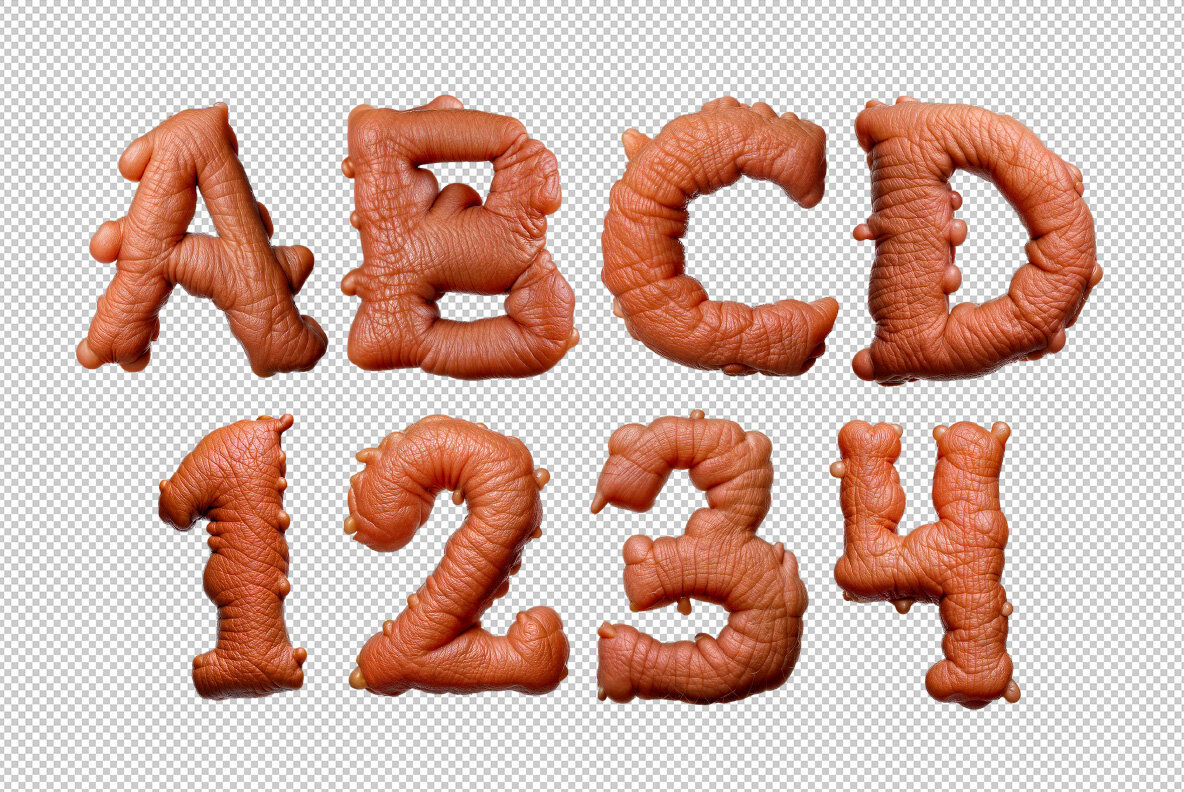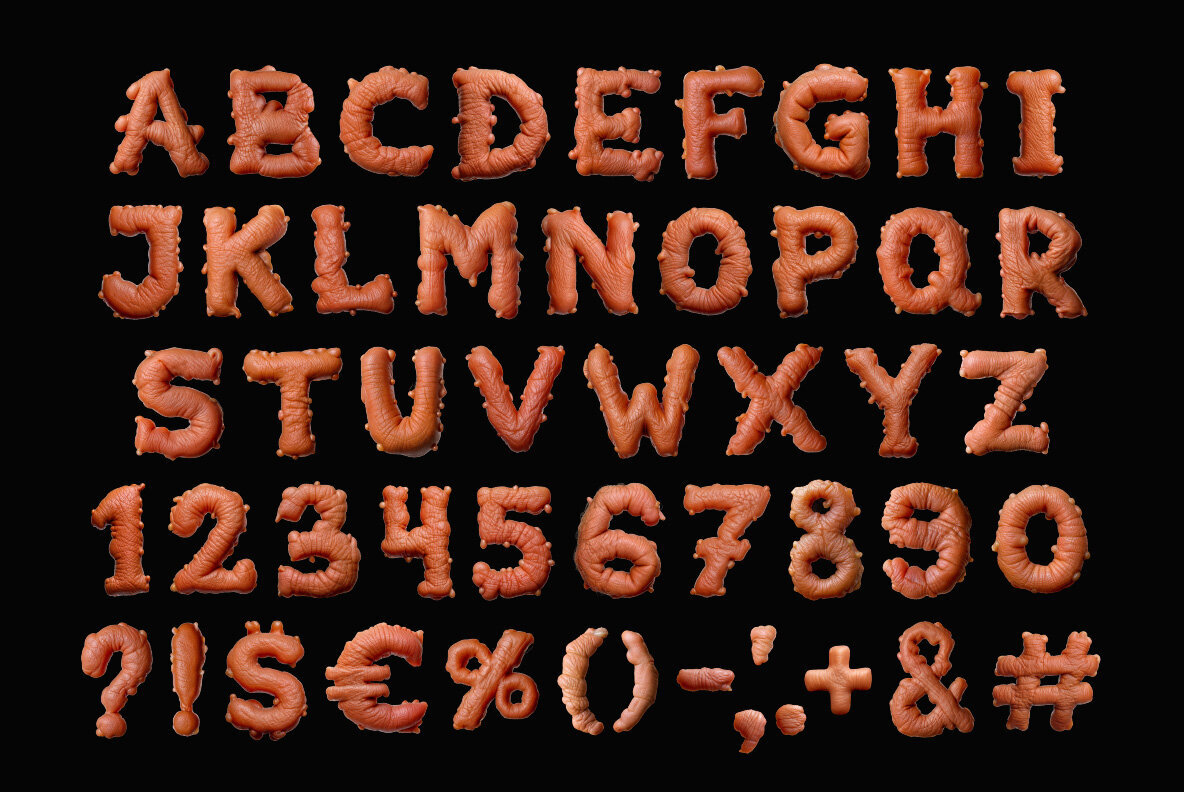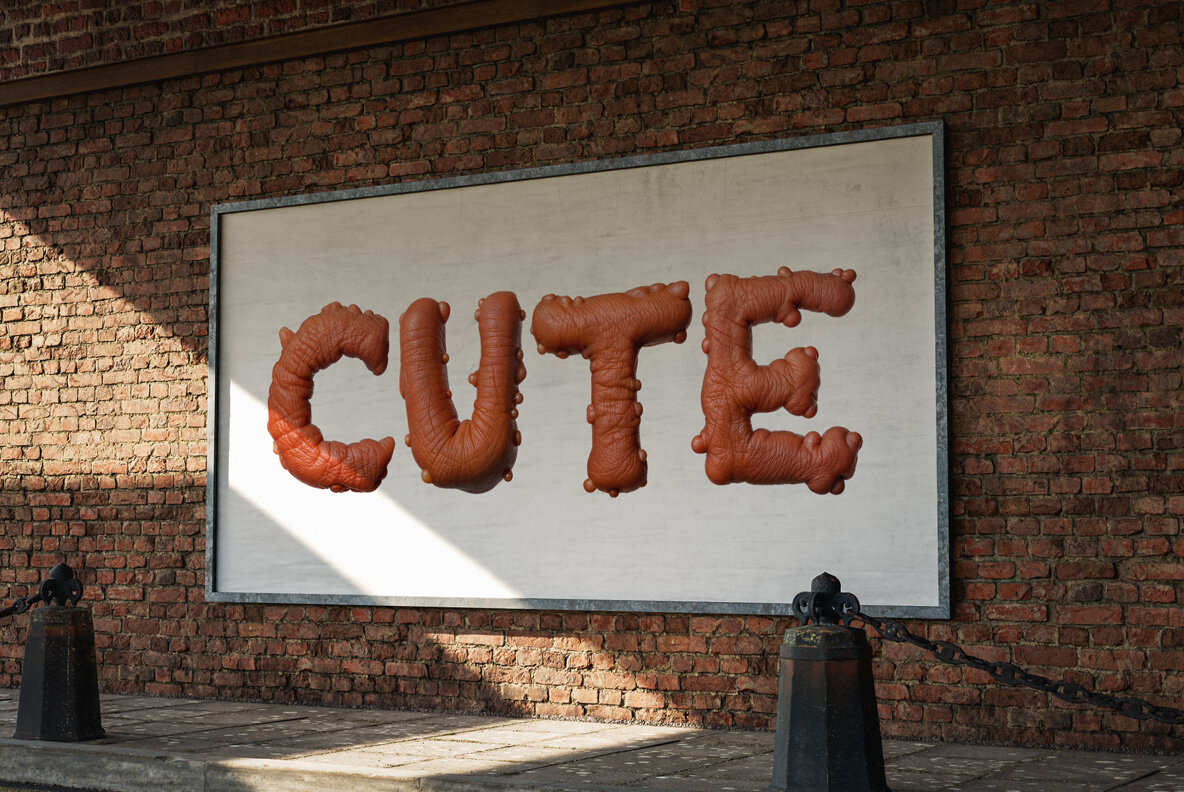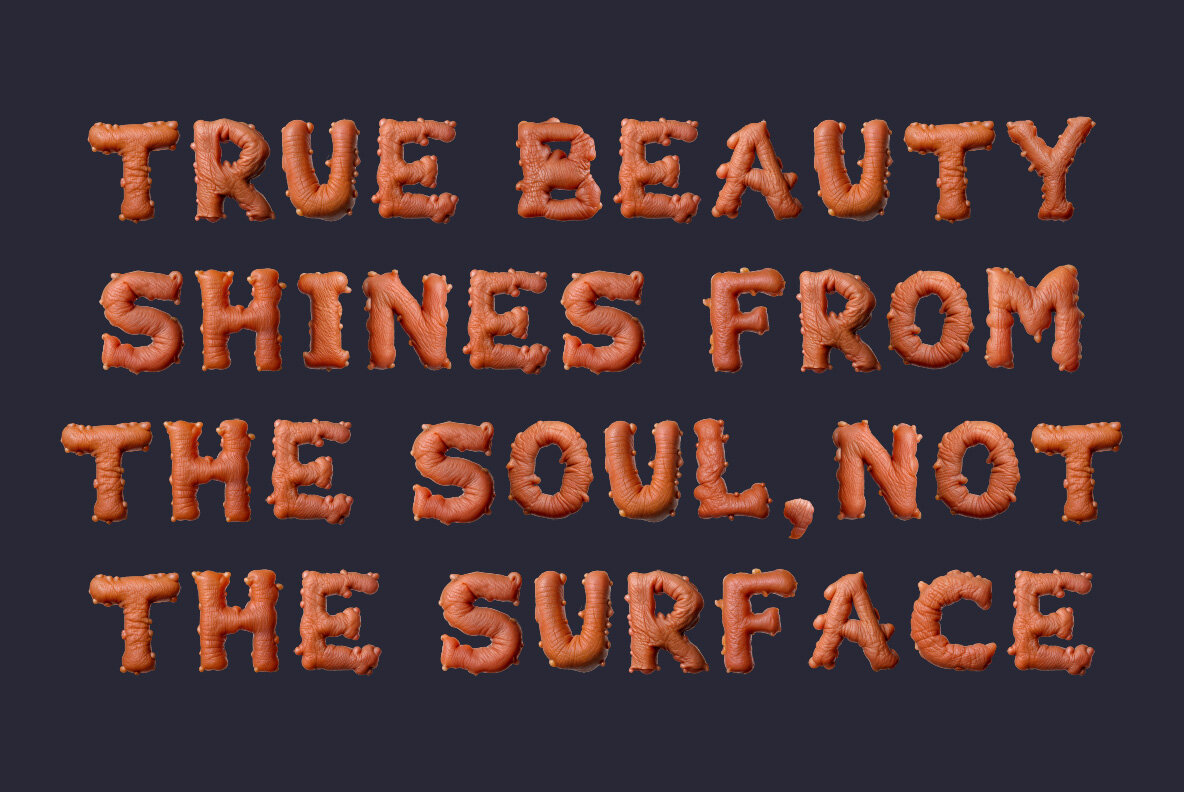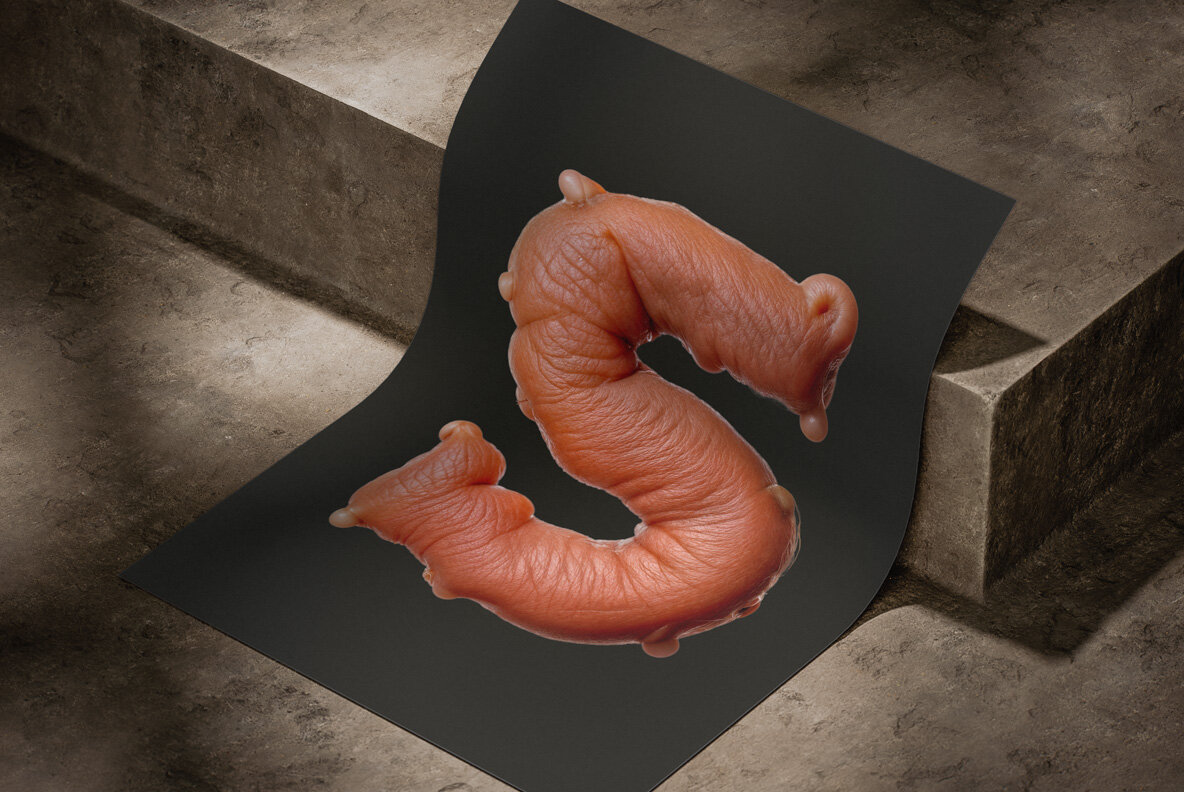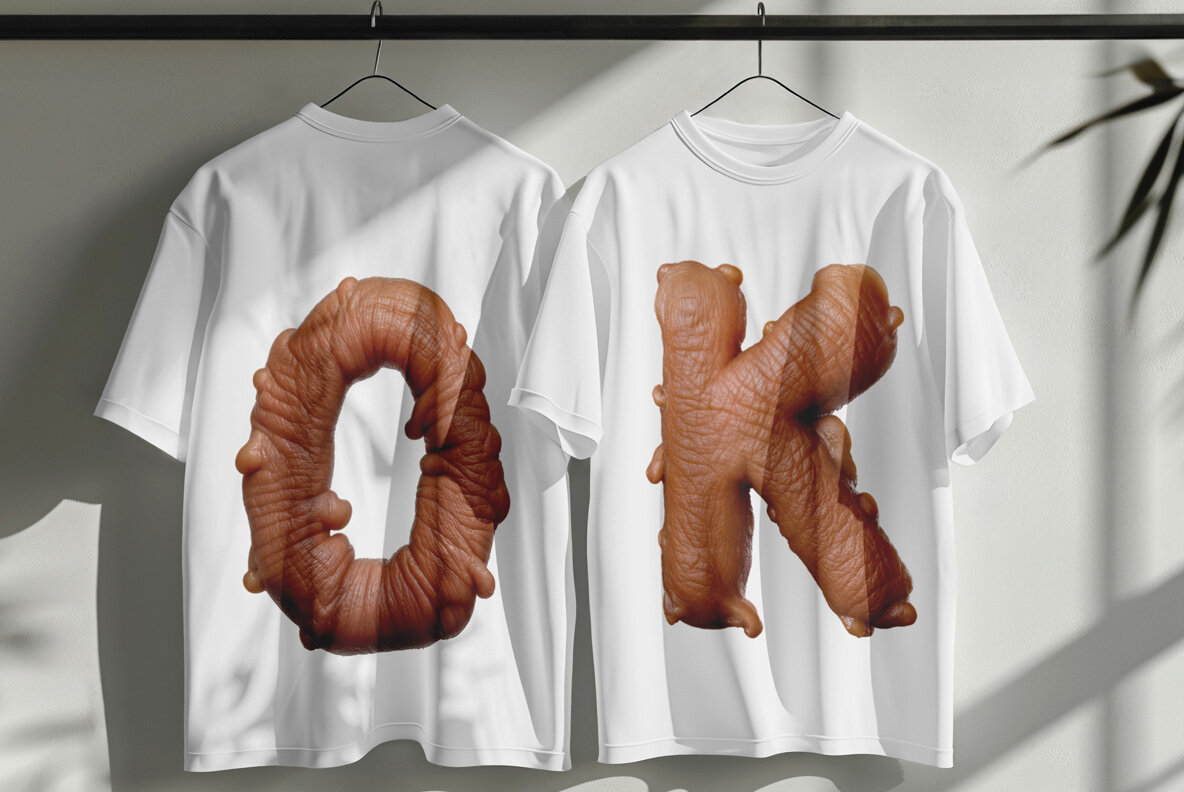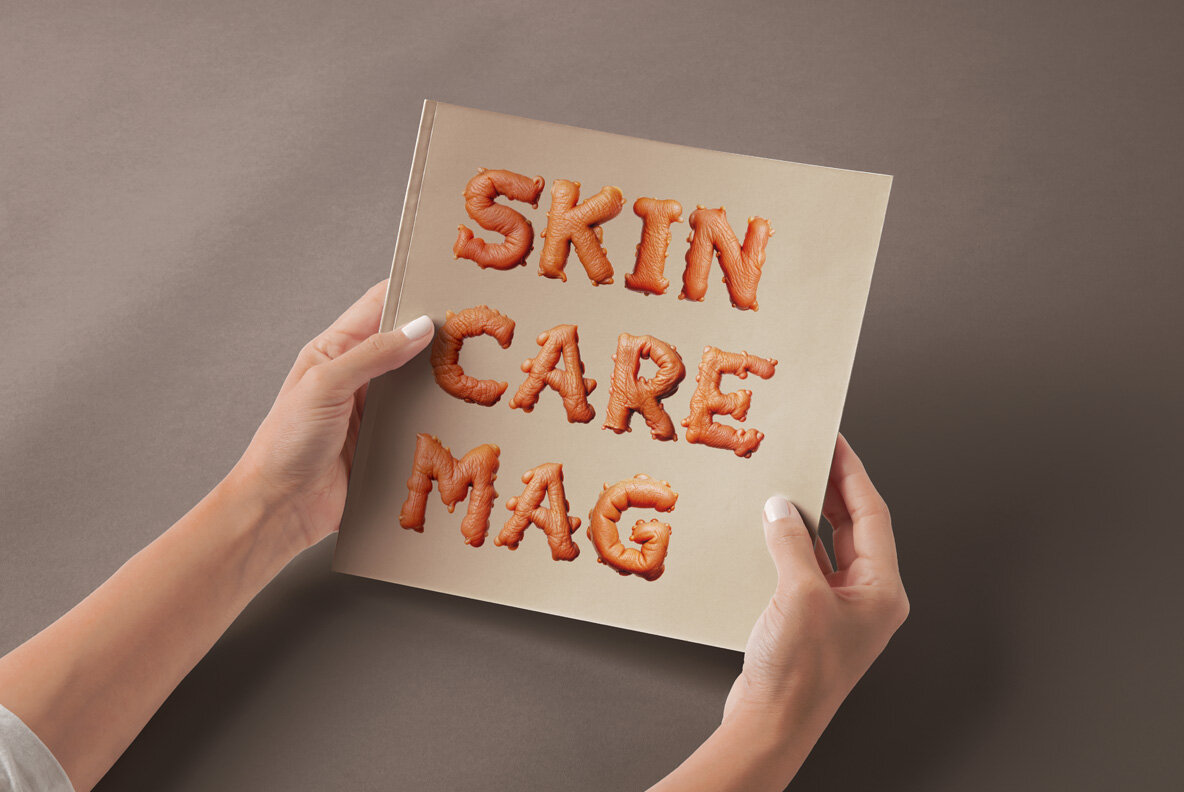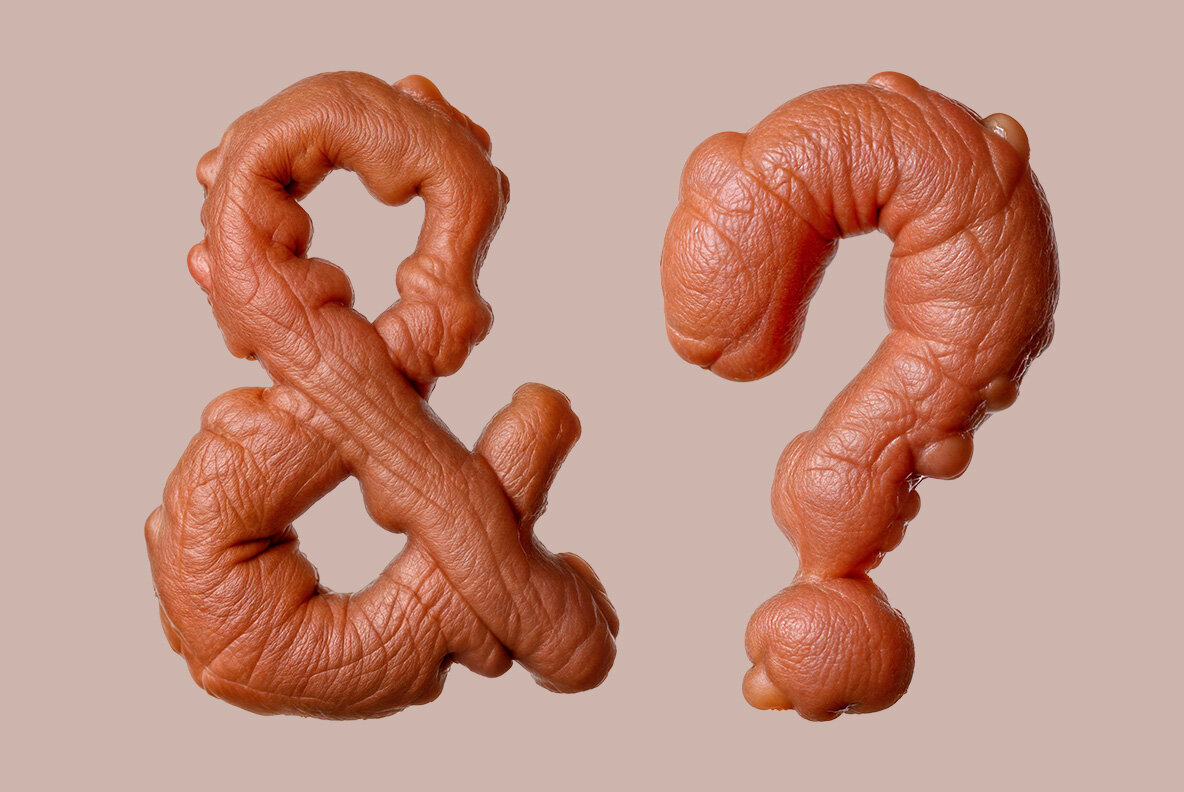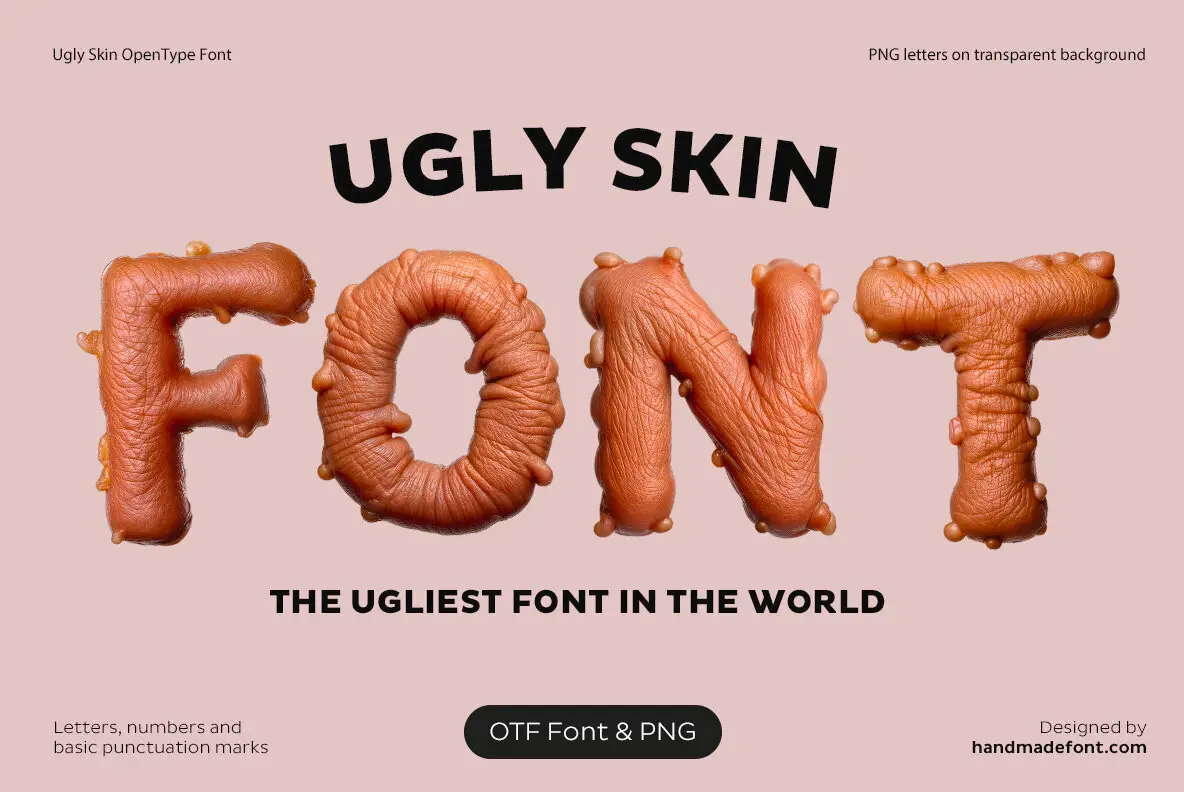
Ugly Skin SVG offers a provocative twist on typography with its skin-inspired design, turning imperfections into an artful medium. Each character—letters, numbers, and punctuation—is meticulously designed to embody the textures of human skin, featuring wrinkles, scars, blemishes, acne, and uneven tones. This unique typeface embraces the raw beauty of imperfections, creating a surreal and unsettling visual language that challenges conventional aesthetics in design. Ideal for those who seek bold, avant-garde typography that pushes the boundaries of traditional beauty.